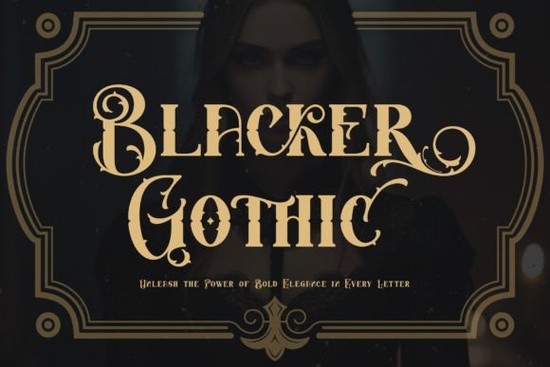
If you're working on a design that calls for dramatic flair, historical texture, or just something that stands out from the usual sans-serifs, Blacker Gothic Font might be exactly what you need. This blackletter-style typeface brings together bold strokes and ornate detailing in a way that feels both classic and fresh. Whether you’re designing product labels, creating merch for your print-on-demand shop, or crafting wedding invitations with an edgy twist, Blacker Gothic offers plenty of personality without sacrificing readability.
One of the standout features of this font is its PUA (Private Use Area) encoding. That means you can easily access alternate characters, swashes, and decorative glyphs right from your design software no need to dig through character maps or install extra files. For crafters and small business owners who aren’t typography experts, that’s a real time-saver.
What kinds of projects work best with Blacker Gothic?
Blackletter fonts like Blacker Gothic shine in contexts where you want to convey strength, tradition, or mystery. Think:
- Branding for breweries, distilleries, or coffee roasters – the bold lines echo vintage apothecary or medieval signage
- Album covers or band merch – especially for metal, goth, or punk genres
- Wedding stationery with a dark romantic vibe
- T-shirt and hoodie designs for niche fashion brands
- Book covers or chapter headings in fantasy or historical fiction
Because it’s highly stylized, it’s best used for headlines, logos, or short phrases rather than body text. Pair it with a clean, neutral sans-serif for balance.
How does it compare to other blackletter fonts?
Not all gothic fonts are created equal. Some lean too medieval and become hard to read; others feel generic. Blacker Gothic strikes a sweet spot: it’s ornate but legible, distinctive but versatile.
If you’ve explored other options on Creative Fabrica, you might have come across fonts like Baghen, which has a sharper, more angular presence, or Rose Gard, which blends floral elements into its letterforms for a softer gothic romance. Then there’s Rebel Frisco, which fuses blackletter structure with graffiti energy great if your project leans urban or Y2K-inspired.
Each serves a different mood. Blacker Gothic sits comfortably in the middle: authoritative without being harsh, decorative without being fussy.
Can beginners use this font effectively?
Pro tip: Start simple. Use the base characters first, then add one or two swashes for emphasis like on the first or last letter of a name or tagline. Overdoing it can clutter your design.
For those curious about the broader category, blackletter fonts trace their roots to medieval manuscripts and early European printing. Today, they’re popular in subcultures and luxury branding alike because they carry instant visual weight. You can read more about the history and evolution of this style via this overview of the Blacker Gothic typeface family.
Before you start designing, keep this checklist in mind:
- Use Blacker Gothic for short text only headlines, logos, names
- Pair it with a simple, modern sans-serif for contrast and clarity
- Test readability at small sizes some details may blur in tiny prints
- Experiment with glyph alternates to add uniqueness without chaos